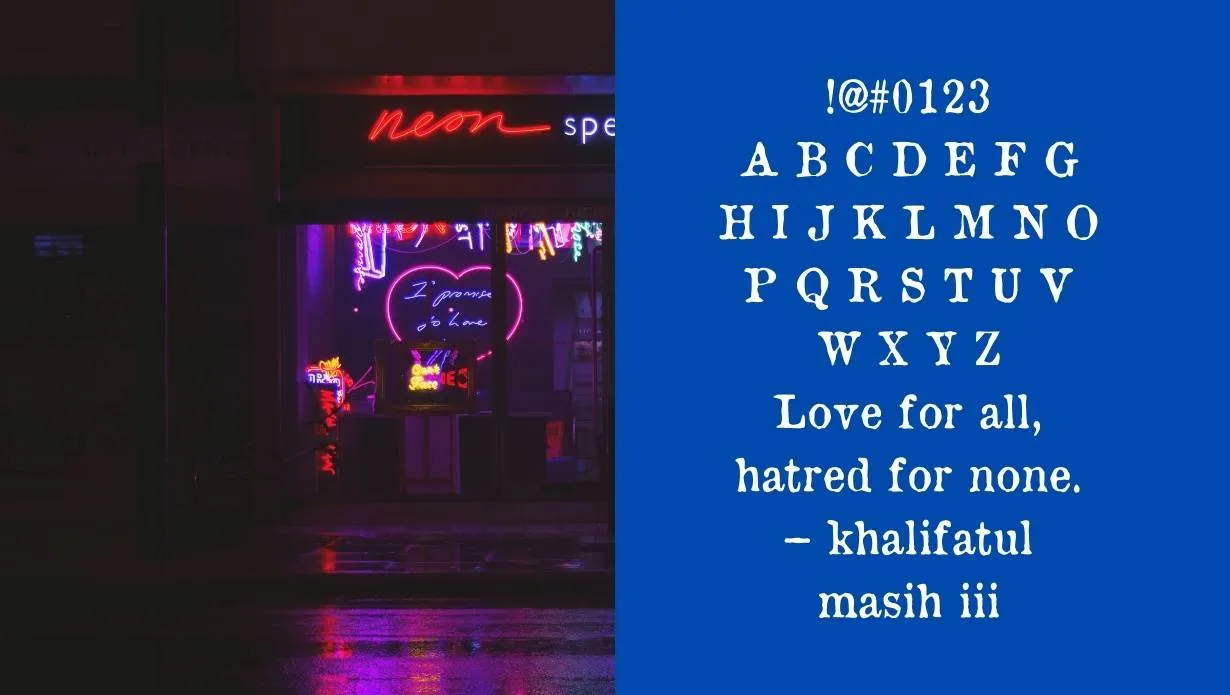
Old newspaper font was designed by Fredric W. Goudy in 1896. The general appearance of the letters is condensed, with small ascenders and descenders. This font is often used for headlines and short paragraphs of text.
The first known use of this font was in an article about the 1896 presidential election in the New York Times. Since then, it has been used by many newspapers, including the Washington Post and the Wall Street Journal.
Old Newspaper Font Family